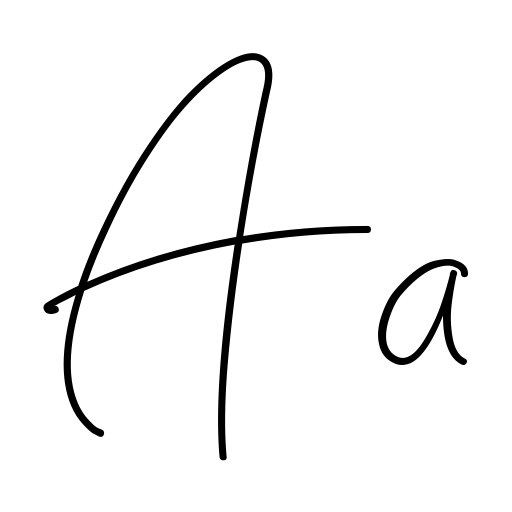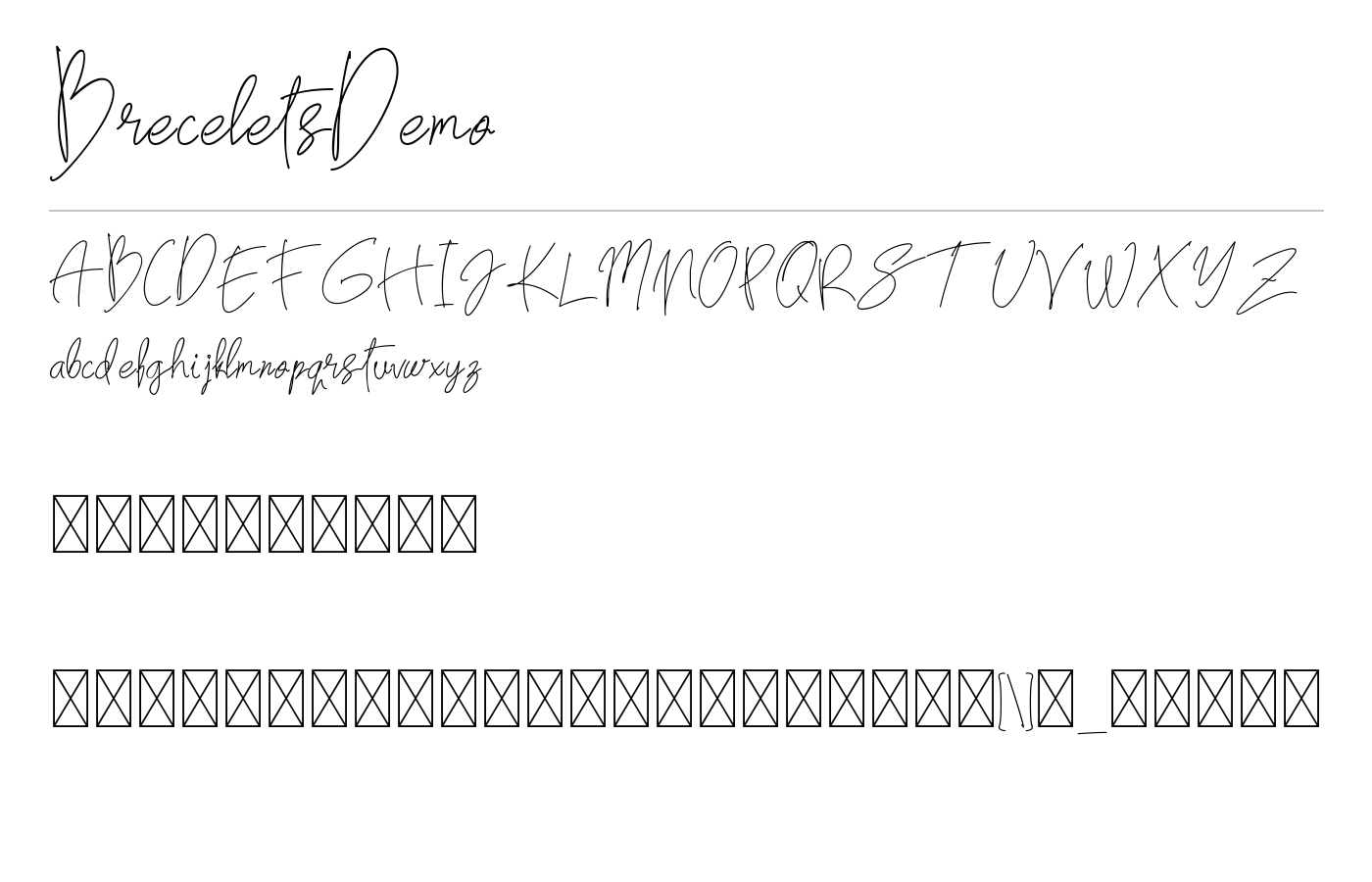
BreceletsDemo is a delicate, handwritten script font characterized by its thin, airy strokes and elegant, flowing letterforms. Its tall, narrow letters with a casual yet refined style make it perfect for personal branding, invitations, or creative projects that seek a sophisticated and intimate touch. This font works best in headline or decorative uses where its unique, artistic flair can shine.
BreceletsDemo Font